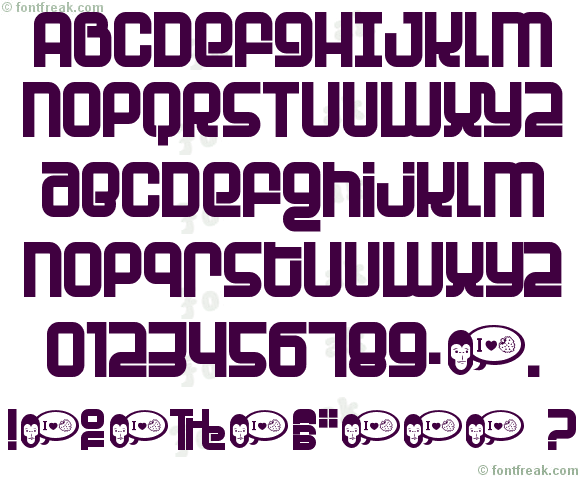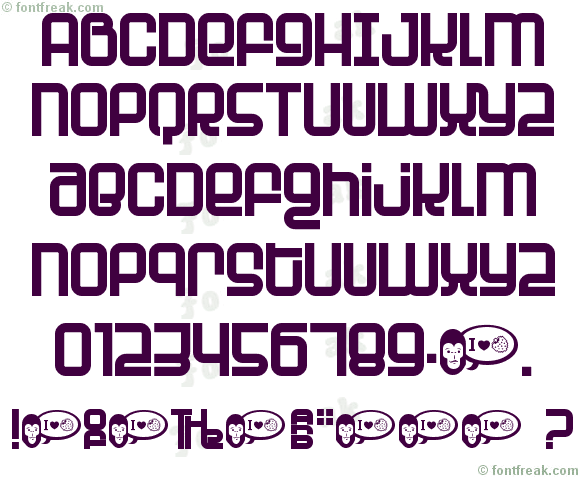
Planet
About Planet
Planet by Font-a-licious Fonts is a modern display typeface that captivates with its unique aesthetic. Released in 2001, this freeware font features a bold, sans-serif style, making it ideal for a variety of creative applications. The visual characteristics of Planet are defined by its strong stroke weight and minimal contrast, which lend it a robust and eye-catching appearance. The letterforms are well-spaced, allowing for clear readability while maintaining a contemporary vibe. The overall design incorporates subtle rounded edges, adding a friendly touch that sets it apart from more rigid typefaces.
This versatile font is perfect for a range of use cases. It shines in the realm of branding, making it an excellent choice for logos and promotional materials. The Planet font is also well-suited for posters, particularly those for events or concerts, where its boldness can capture attention from afar. Additionally, it works effectively for website headers or social media graphics, providing a modern flair to digital content. Small business owners can utilize this font for product packaging or menu designs, creating a cohesive and appealing visual identity.
Targeted primarily at graphic designers, content creators, and small business owners, Planet offers an approachable yet distinctive option for various projects. Its free availability makes it accessible to anyone looking to enhance their designs without budget constraints. The Planet font free download provides an opportunity to experiment with this striking typeface, allowing users to incorporate its unique charm into their work. Ultimately, what makes Planet standout is its perfect blend of modernity and readability, ensuring that it captures attention while remaining functional in a multitude of design scenarios.